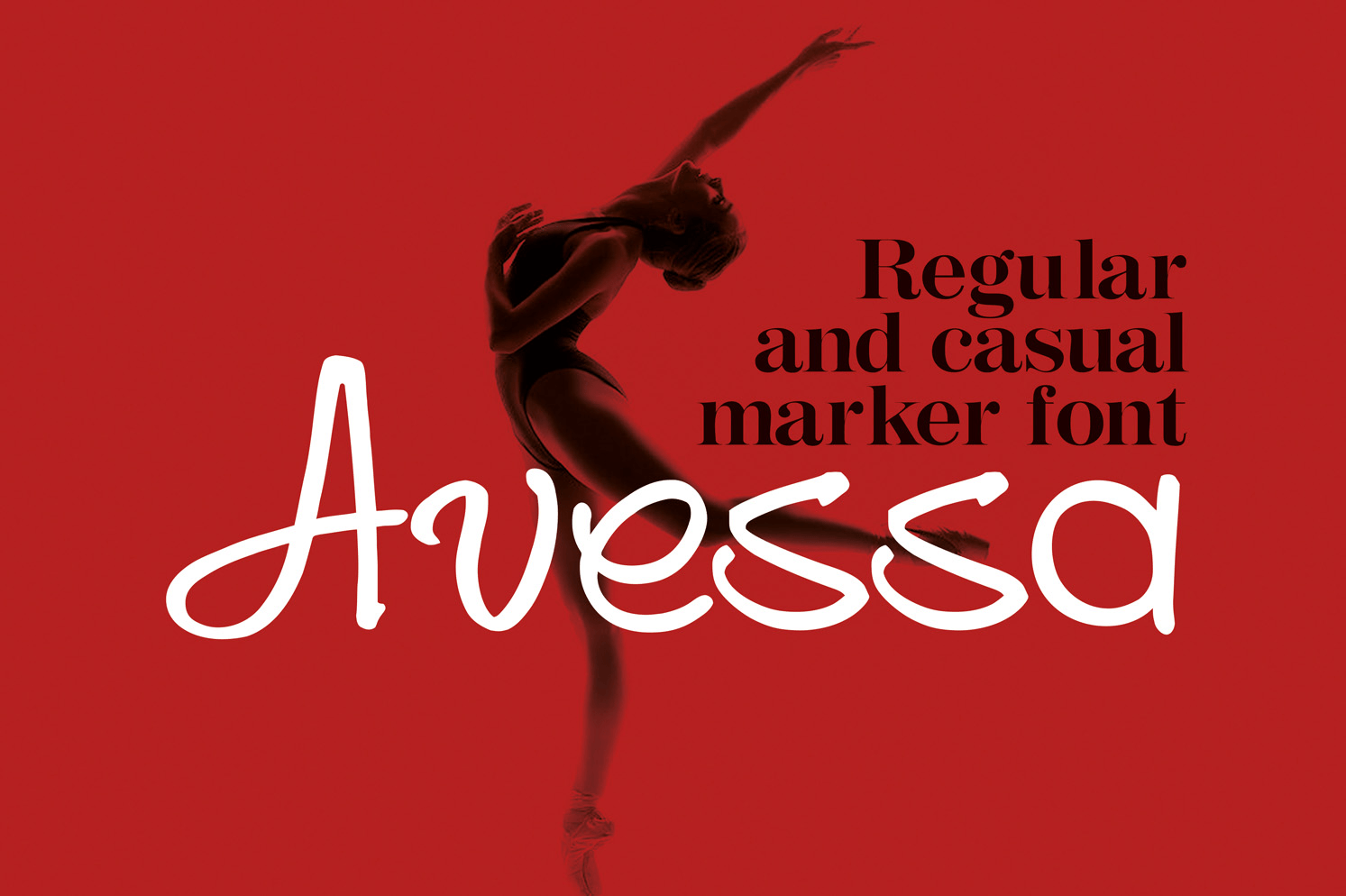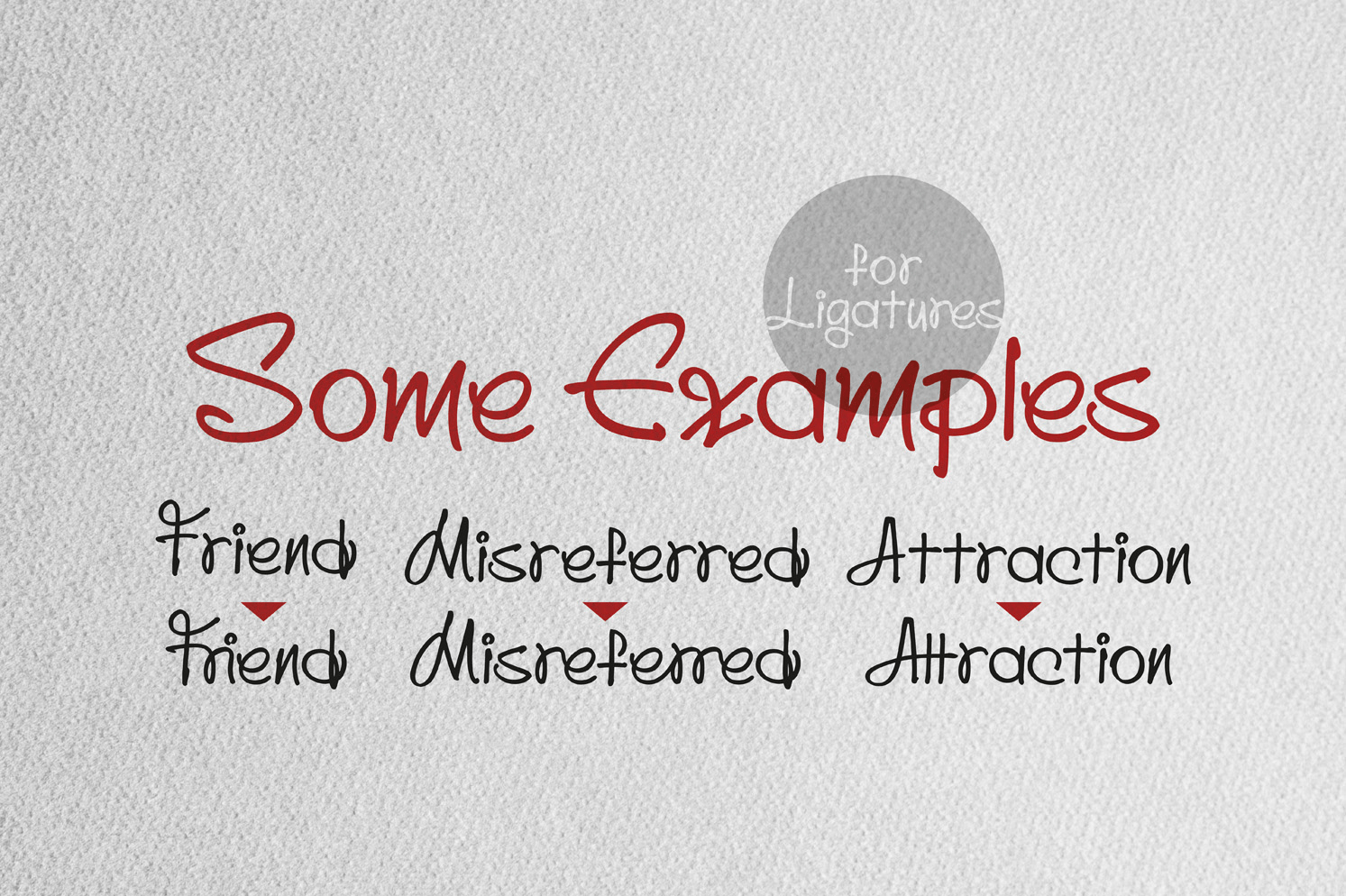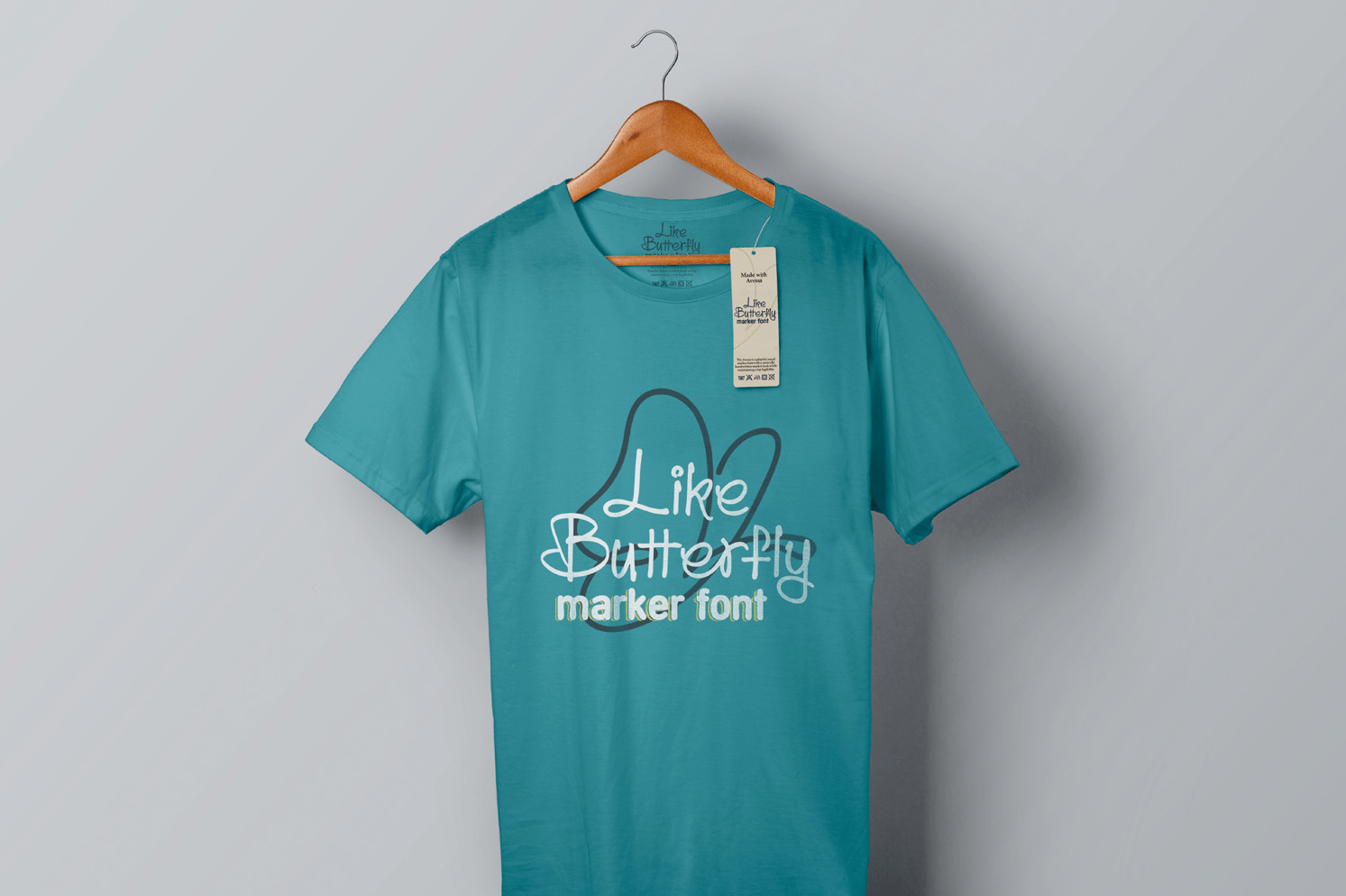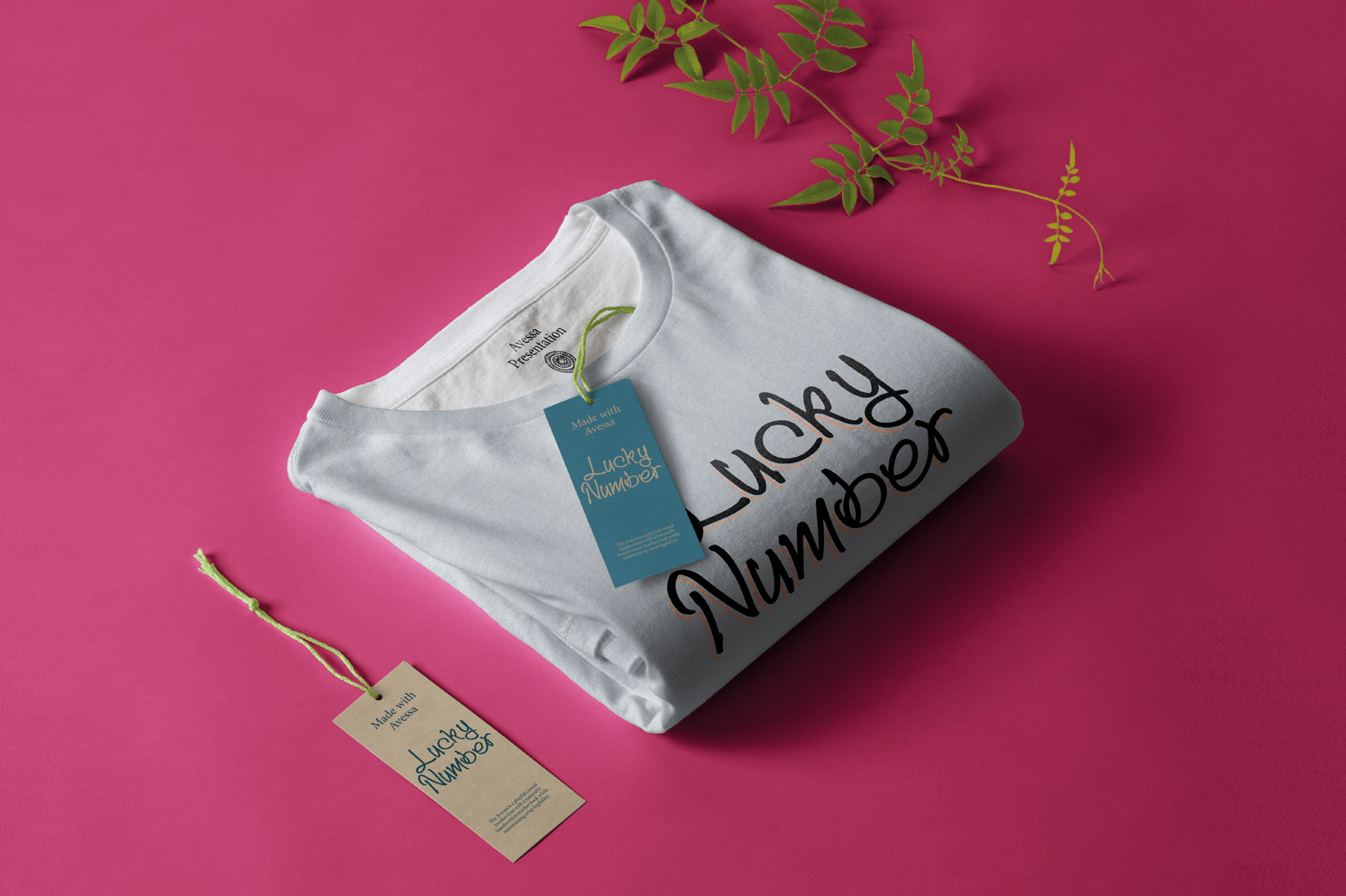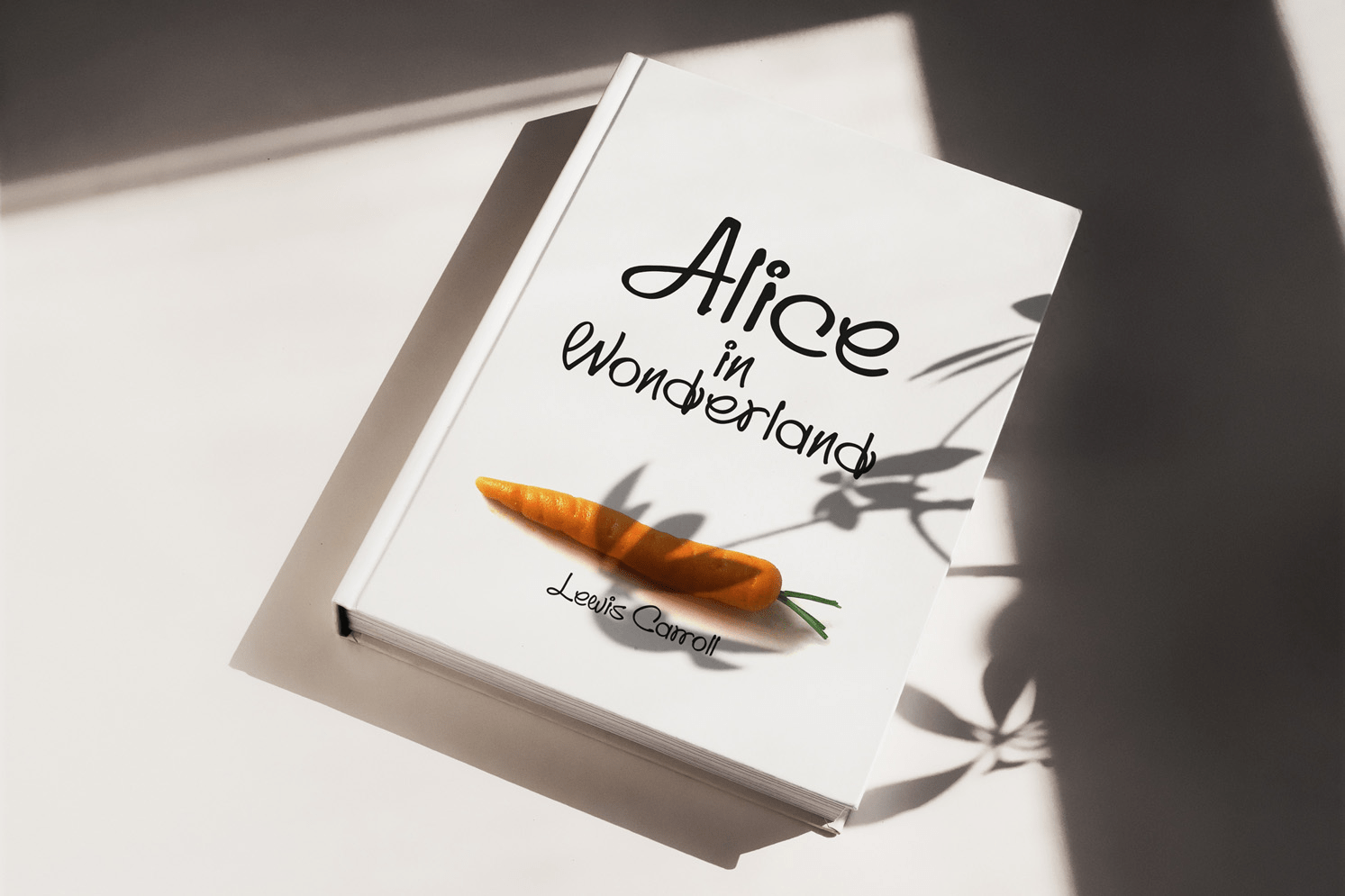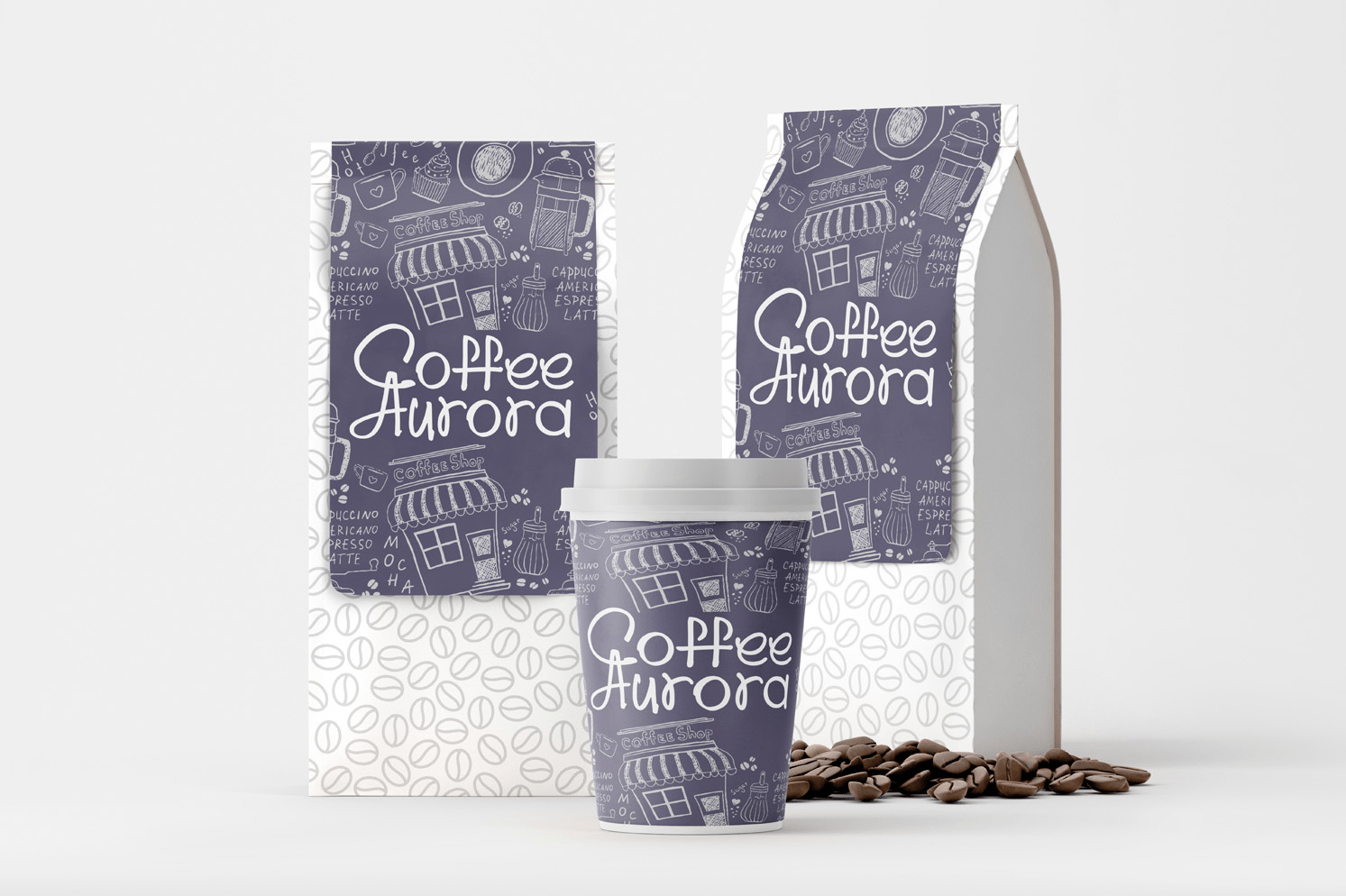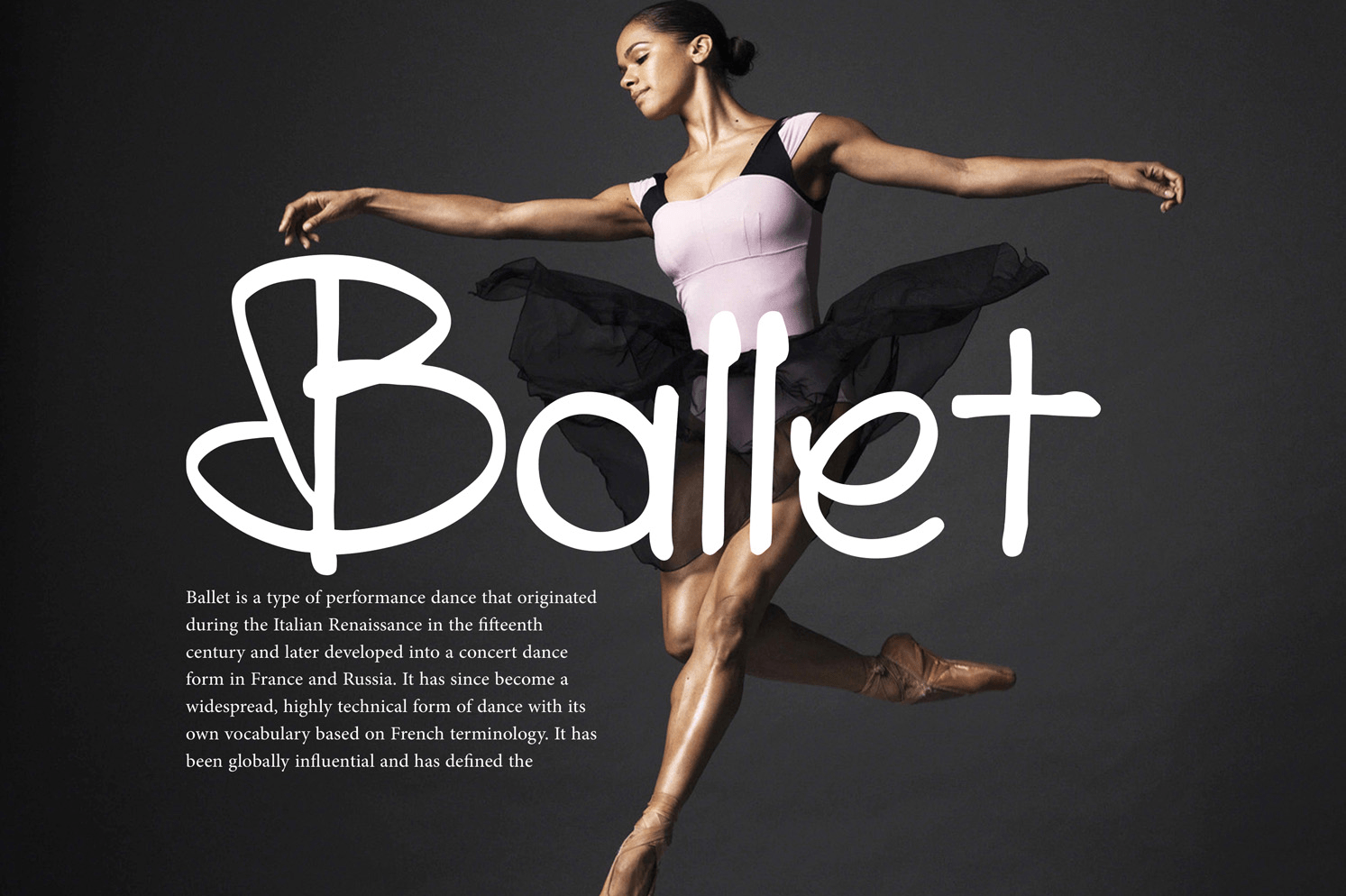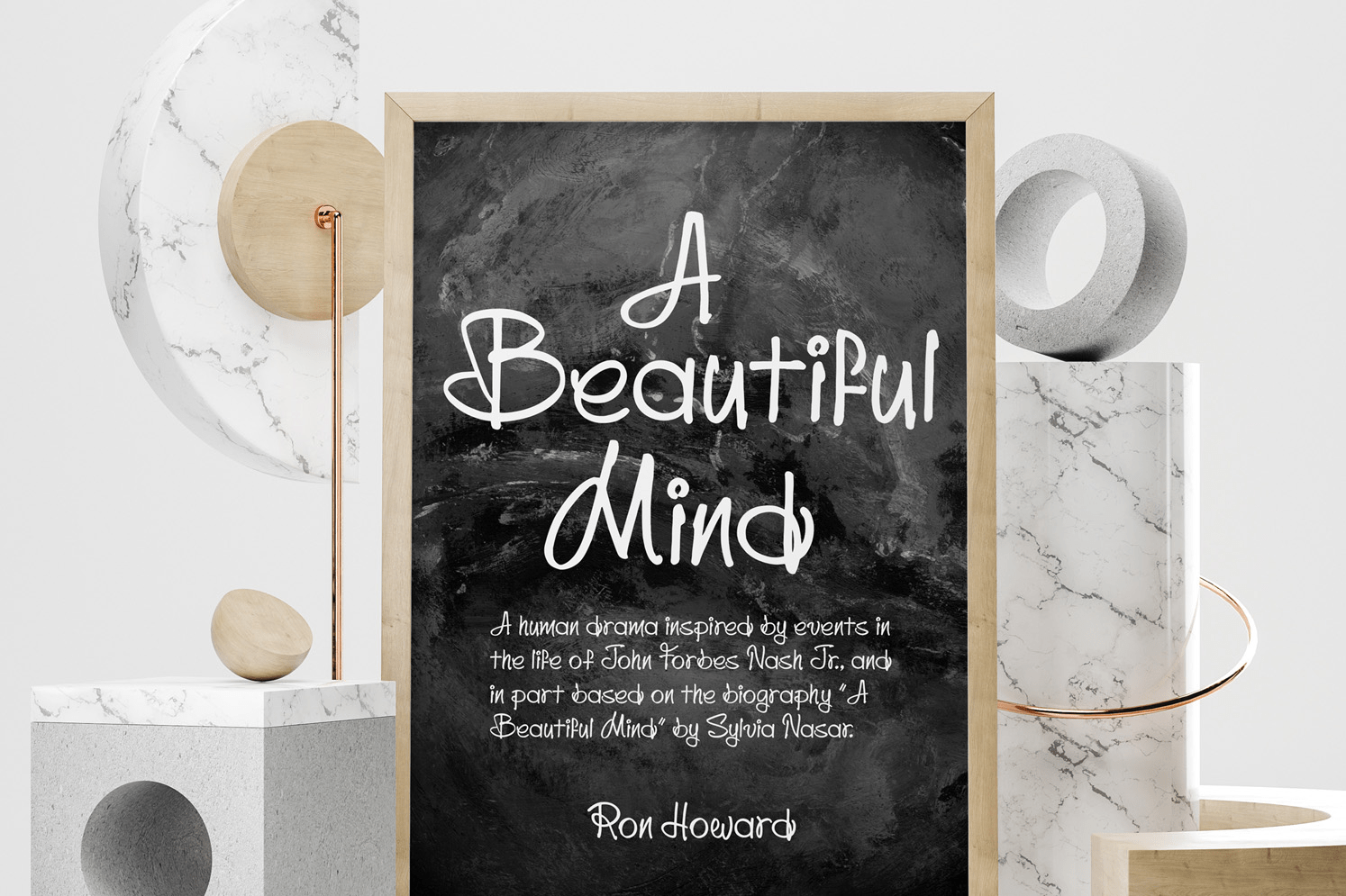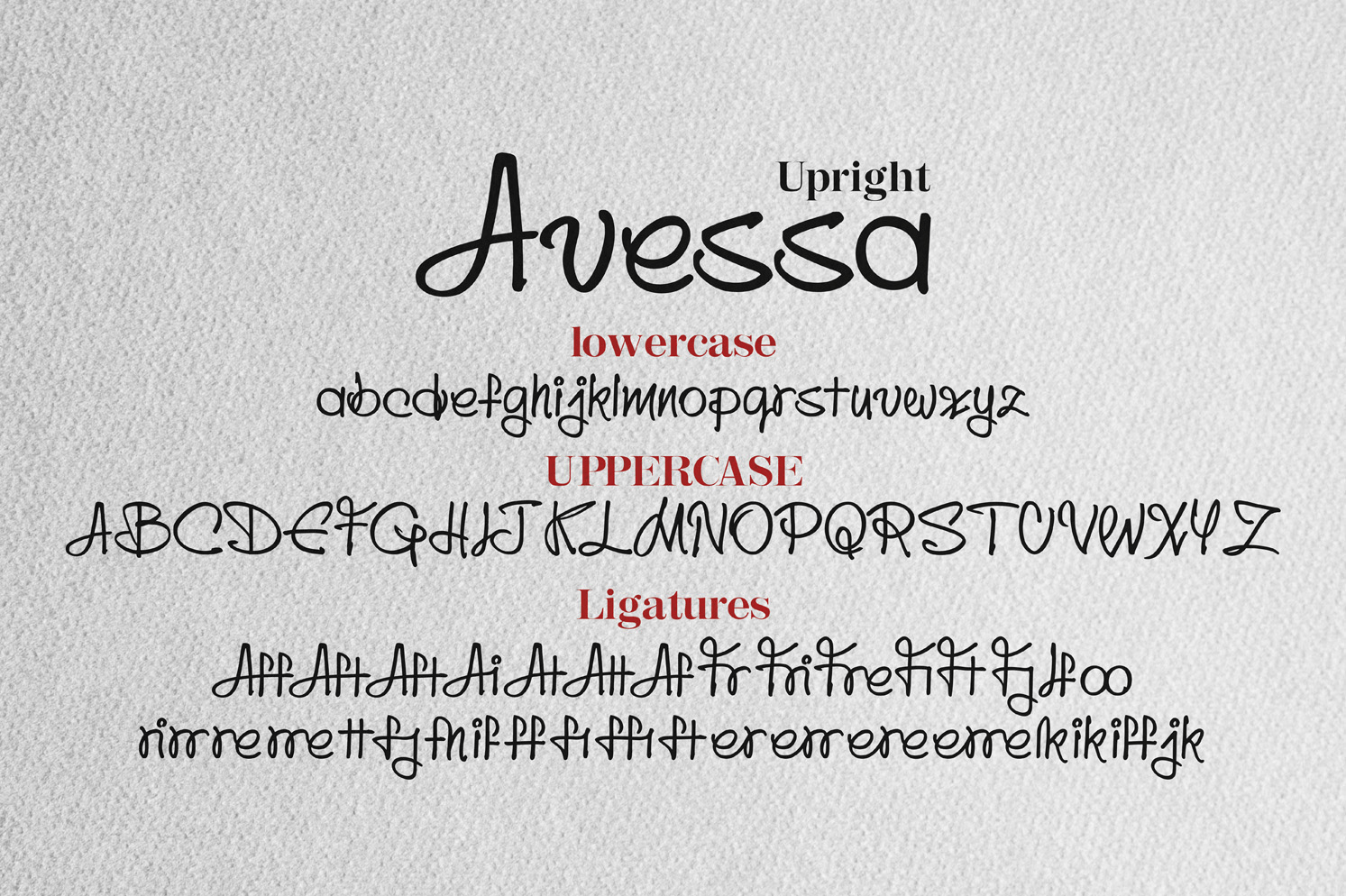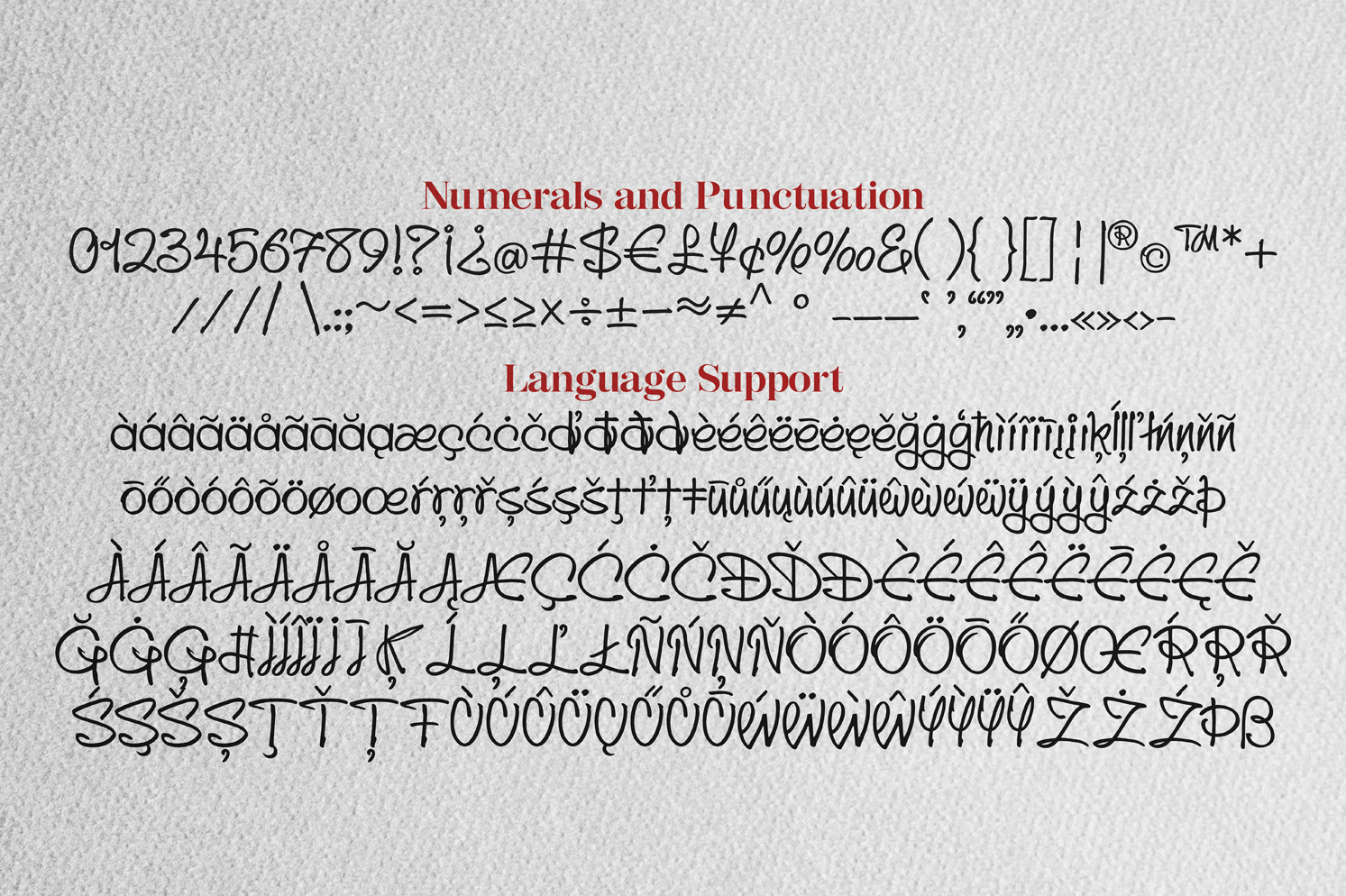
Avessa
Font Family by Arman Khorramak
Avessa is a playful casual marker font with a naturally handwritten marker look while maintaining crisp legibility. Built for elegant headlines, eye-catching titles, distinguished brands or short blocks of text, Avessa comes with a wonderful compliment of ligatures and pairs beautifully with sans serif typefaces.